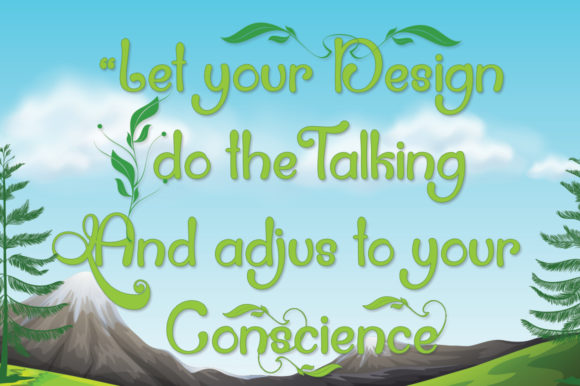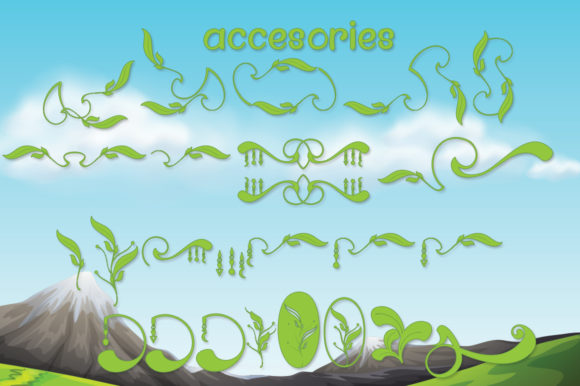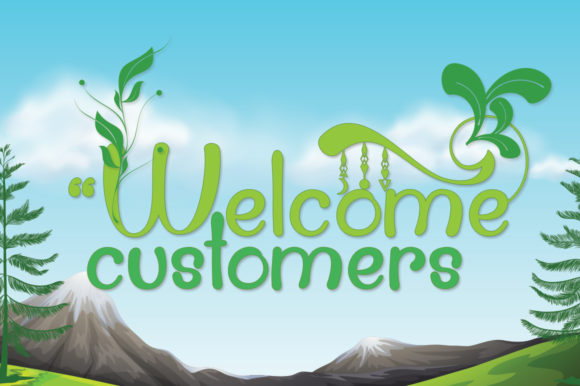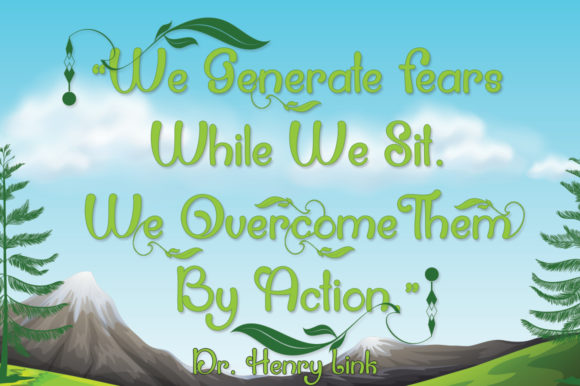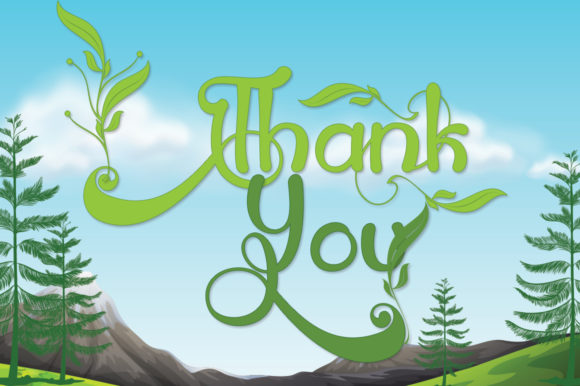
Holidays Spring Font
About Holidays Spring Font
Holidays Spring embodies fun, quirkiness and authenticity. It features gorgeous swashes and ligatures that make this script incredibly versatile. This enchanting script font will turn any creative idea into a true standout.